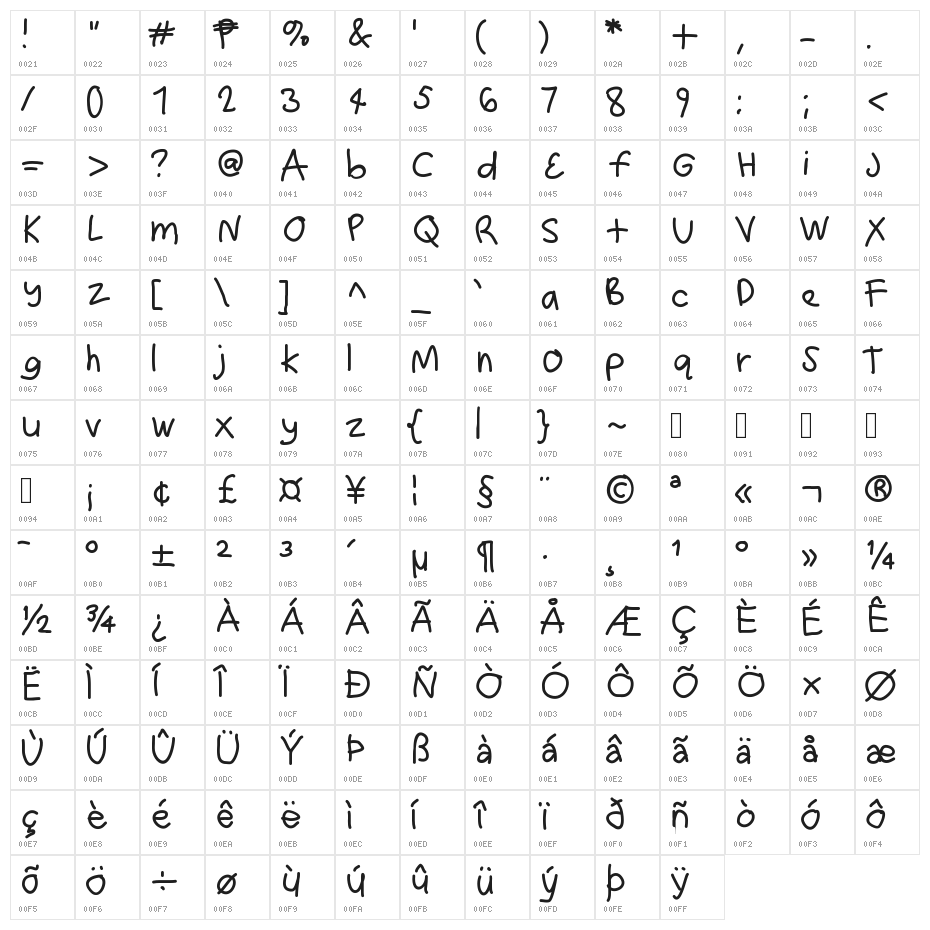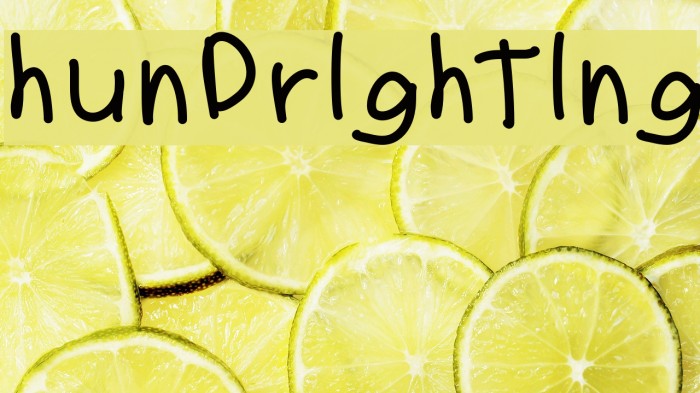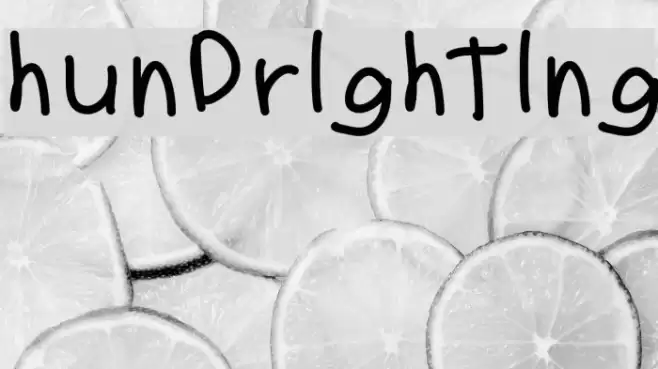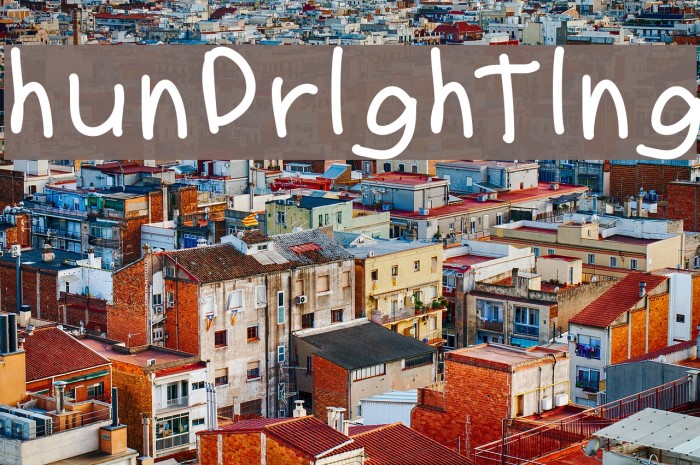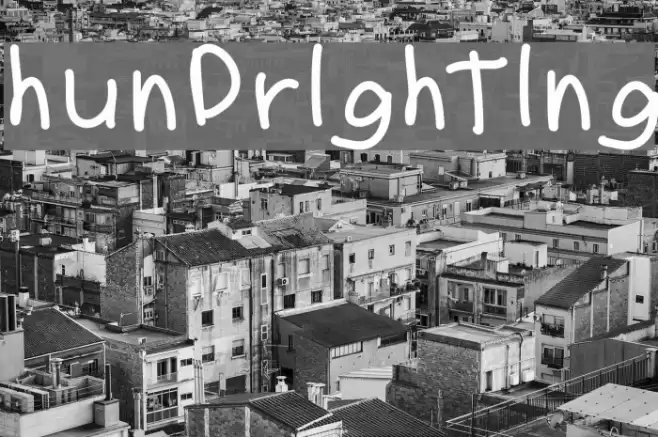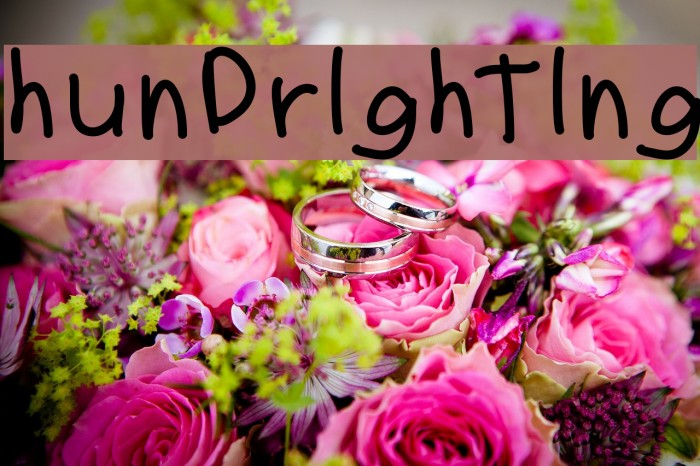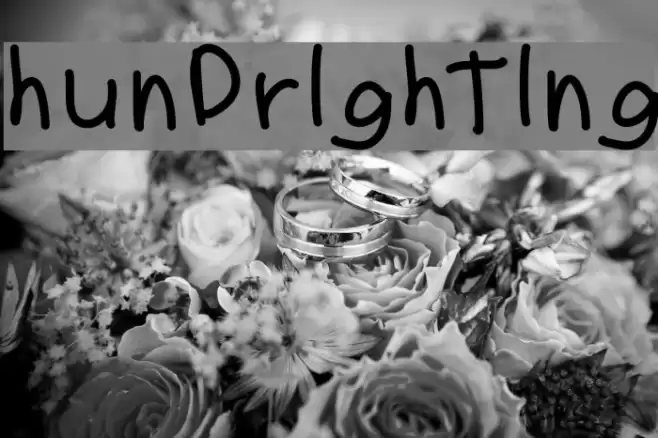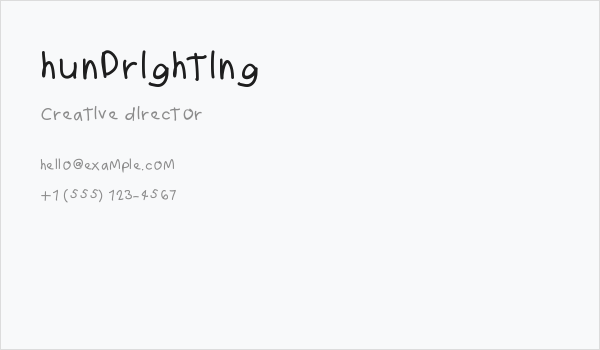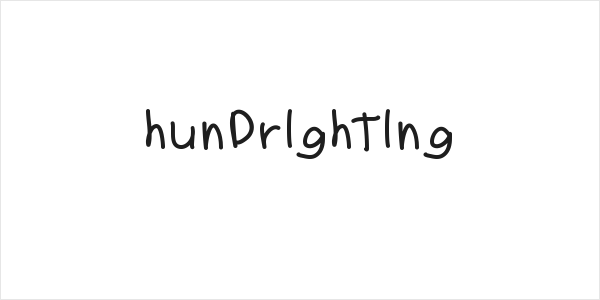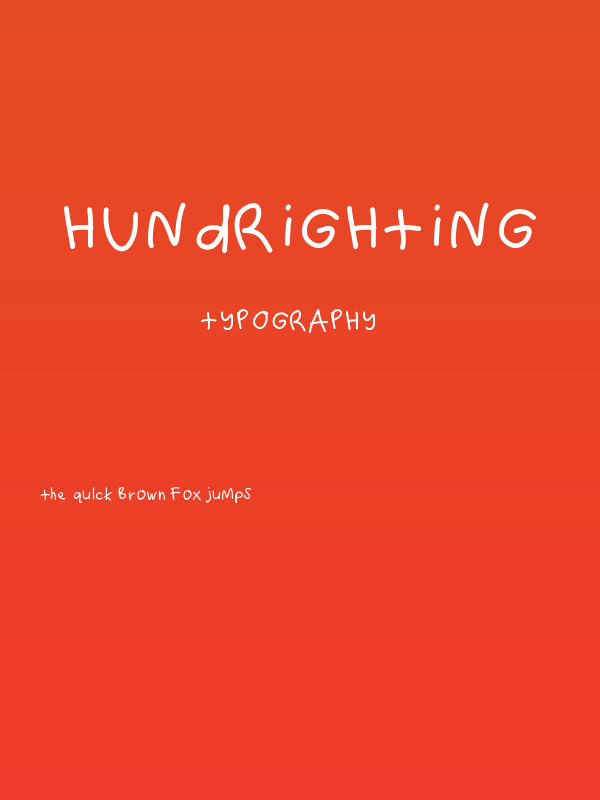
hundrighting Font
hundrighting Description
This font features a playful and casual handwritten style, characterized by its irregular and slightly uneven strokes that mimic natural handwriting. The letters have a whimsical and informal appearance, with varying heights and widths that add to its charm. The rounded edges and smooth curves give it a friendly and approachable feel, making it ideal for projects that require a personal touch. The numbers and special characters maintain the same playful aesthetic, ensuring consistency across all text elements.
| Use Case | Headlines, Informal text, Personal projects |
| Proposed Projects | Ideal for greeting cards, children's books, personal blogs, and informal invitations. |